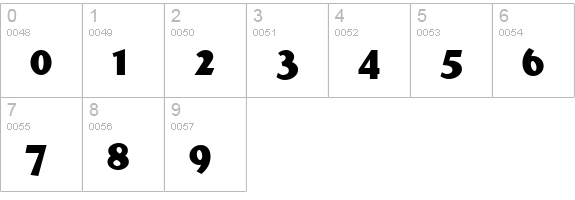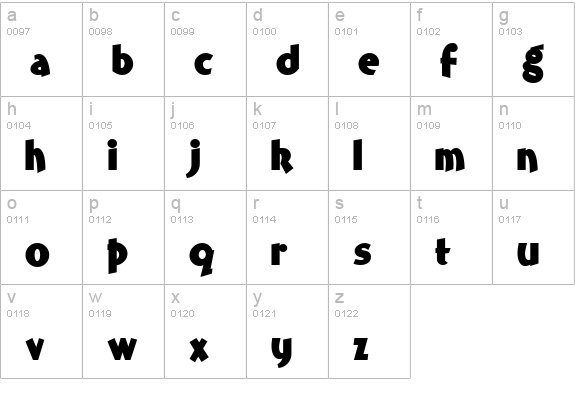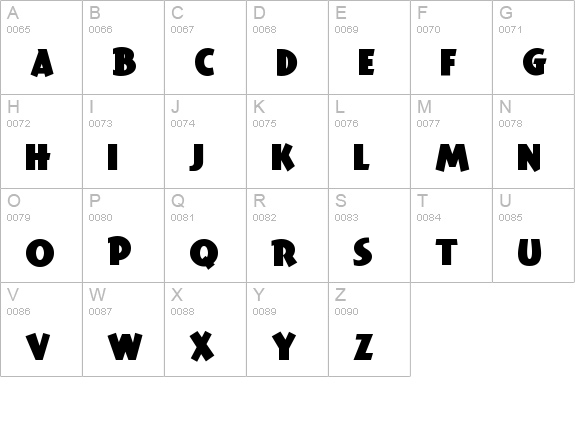
BundleOfJoyNF Font Details
Introducing BundleOfJoyNF font, a whimsical and playful typeface that exudes charm and character. This delightful font is perfect for adding a touch of joy to your creative projects, whether it be invitations, greeting cards, posters, or branding materials. With its unique and quirky design, BundleOfJoyNF font will surely captivate your audience and leave a lasting impression. The best part? BundleOfJoyNF font is available for free download at FontsMarket.com, making it easily accessible for all your design needs. Embrace the fun and creativity that this font brings to your projects, and let your imagination run wild with BundleOfJoyNF font. Download it today and start spreading joy with your designs!